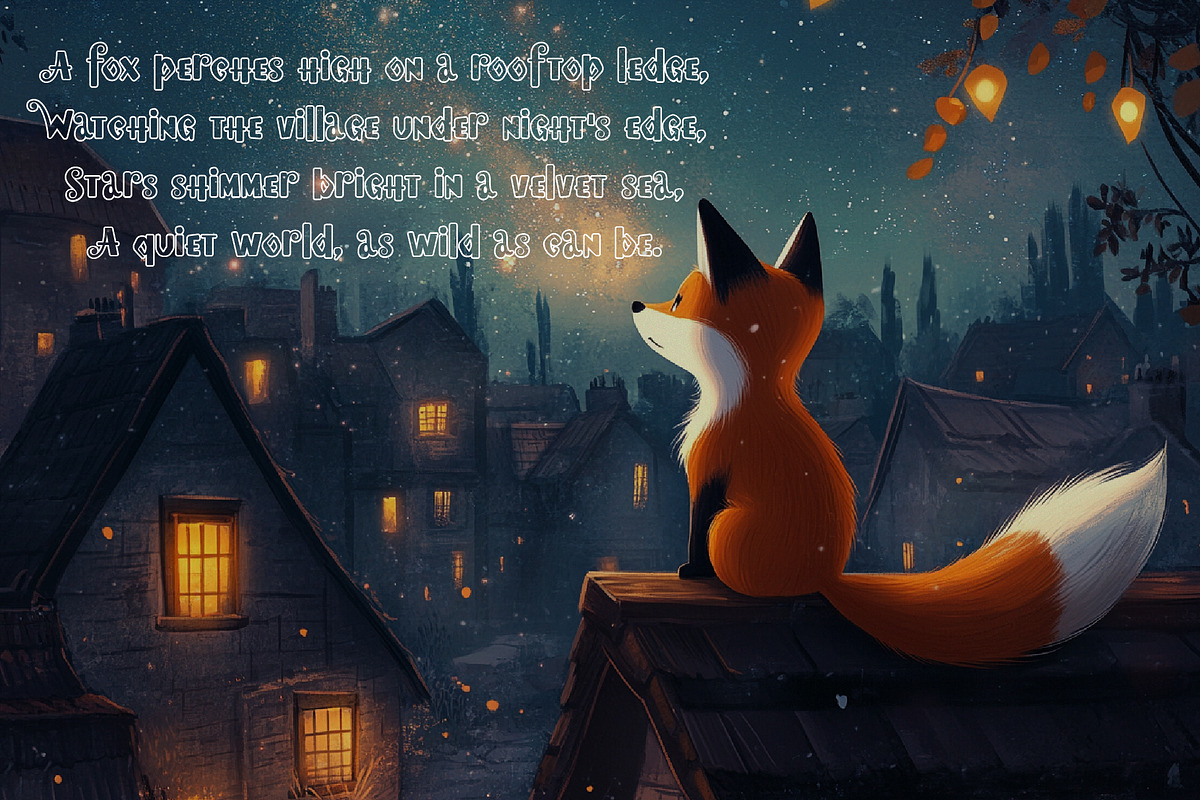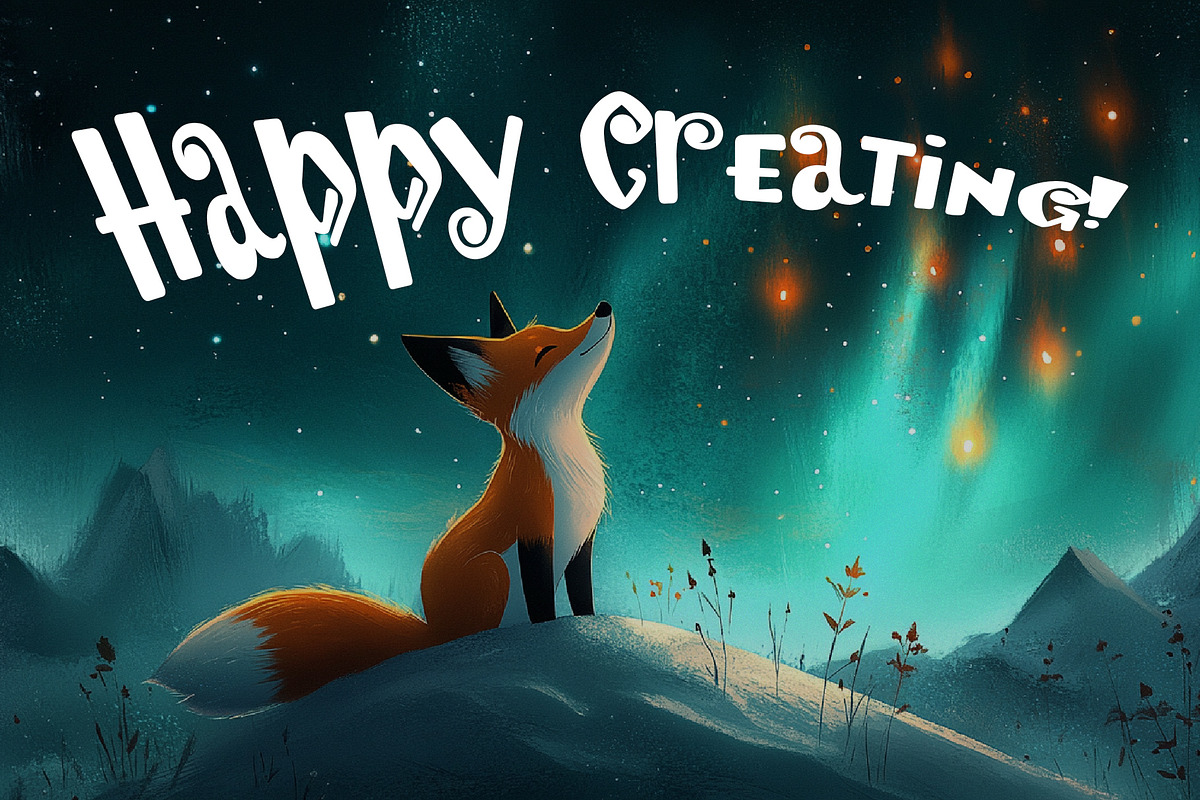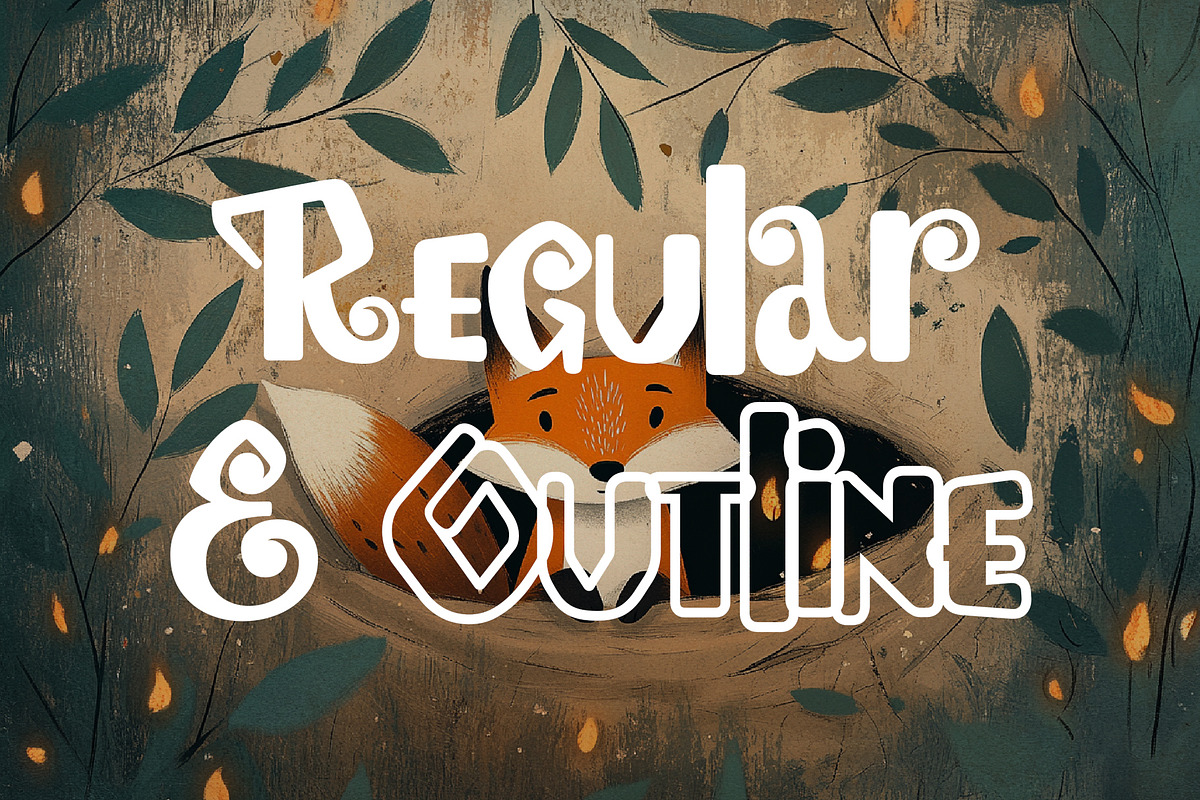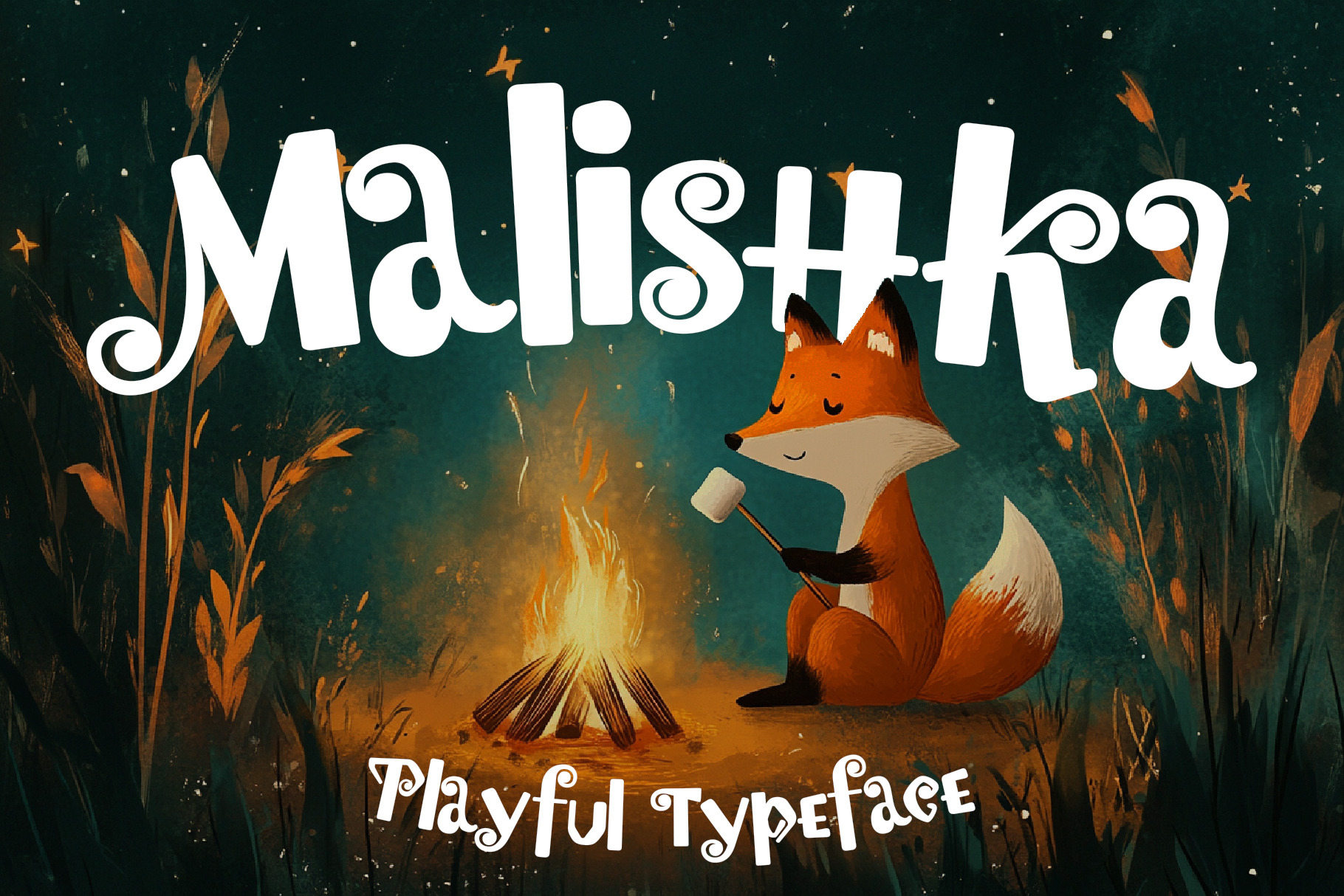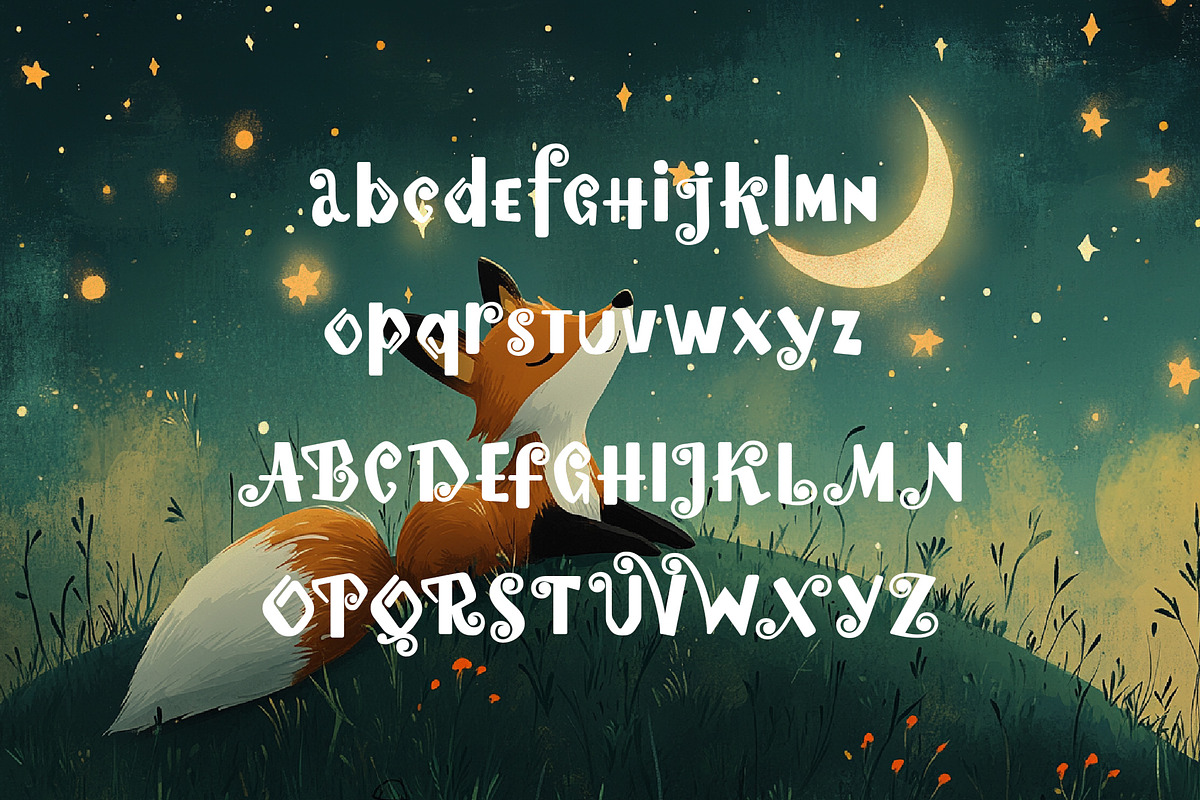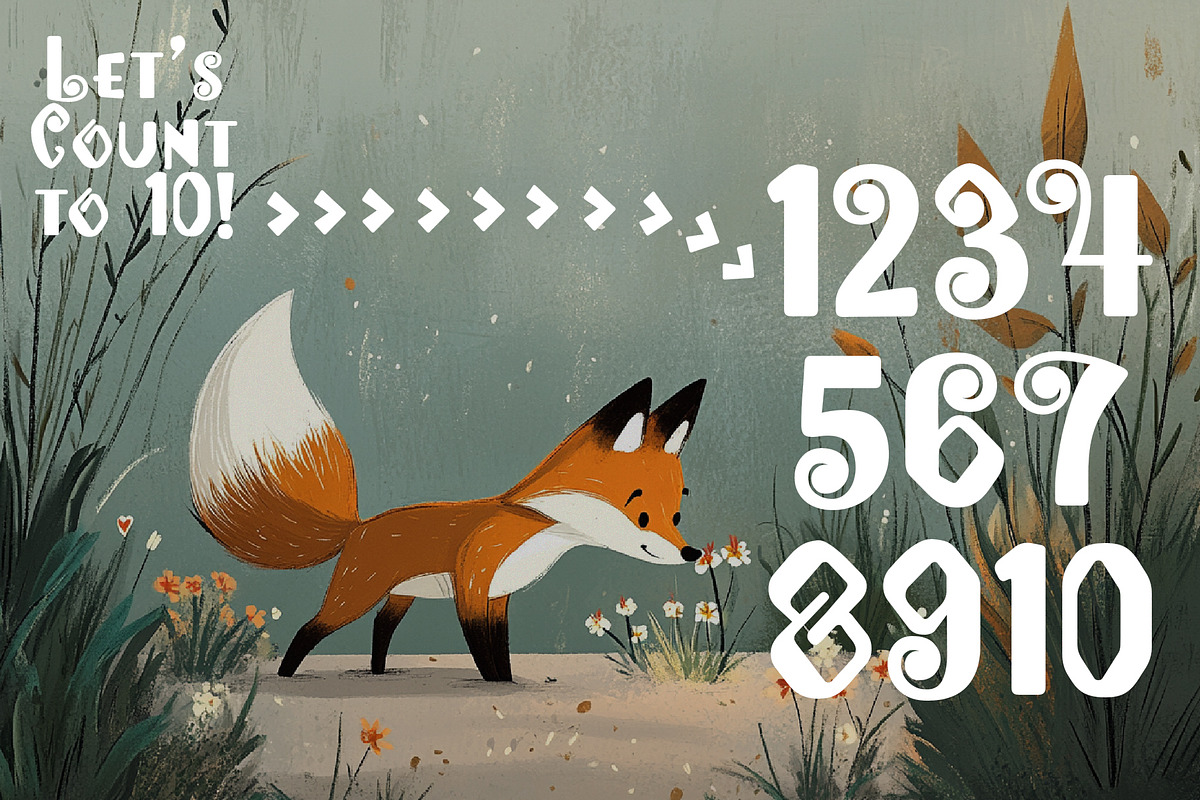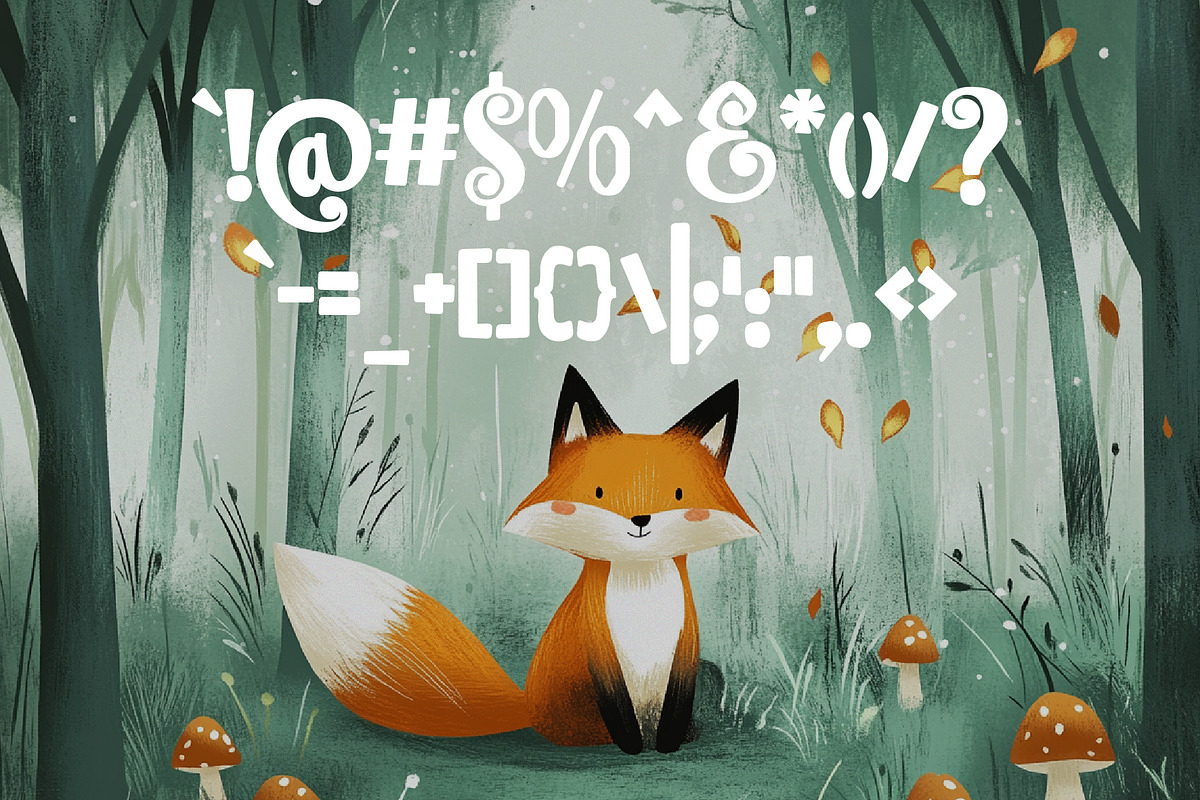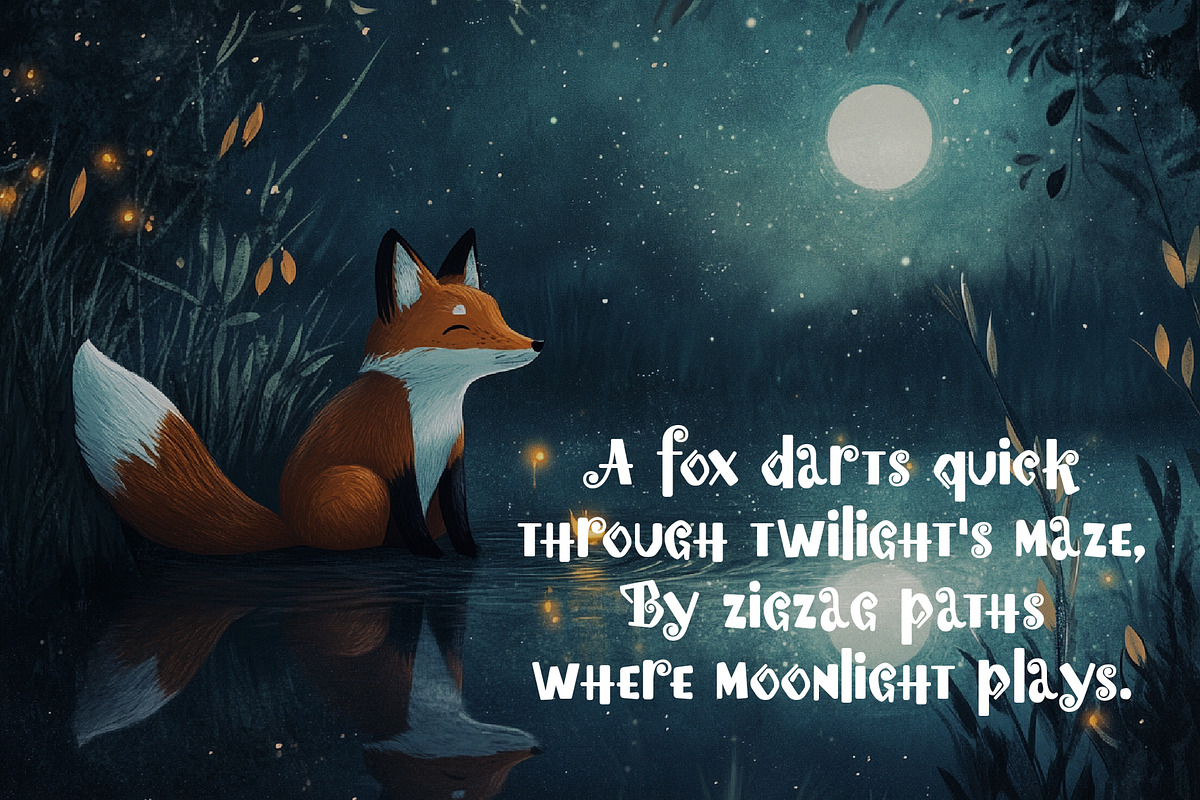
Malishka - Adorable Typeface
Unleash the charm of childhood wonder with Malishka, a delightful serif font designed to bring smiles to every project! Perfectly playful and irresistibly adorable, Malishka blends serif and sans-serif characters into a unique harmony, creating a typeface that's both distinctive and timeless.
Each letter is crafted with whimsy and flair, making Malishka ideal for children's books, playful branding, posters, and more. Its quirky personality and one-of-a-kind design ensure it stands out, while its readability keeps it approachable and fun.
Whether you're designing for young hearts or adding a touch of joy to your creative work, Malishka promises to deliver a memorable and lovable experience. Embrace the magic of this unique typeface and make your projects unforgettable!